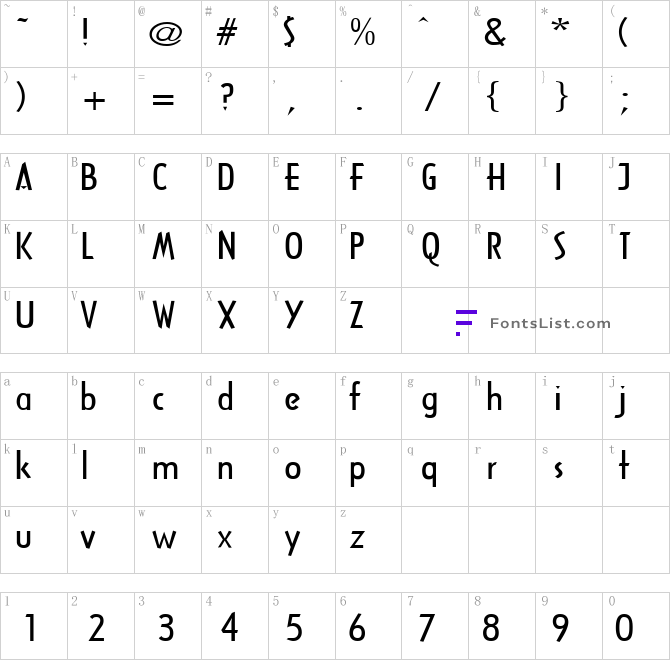
- Font Name:ArcaneBroad
ArcaneBroad-Regular-copy-2-.ttf is a very beautiful artistic font, ArcaneBroad-Regular-copy-2-.ttf is widely used in the design and printing of various books and pictures,ArcaneBroad-Regular-copy-2-.ttf has a strong visual impact,ArcaneBroad-Regular-copy-2-.ttf is a commonly used font in newspapers, magazines and books, and is used in posters, e-commerce Poster design, store design, logo design, font design and other fields.ArcaneBroad-Regular-copy-2-.